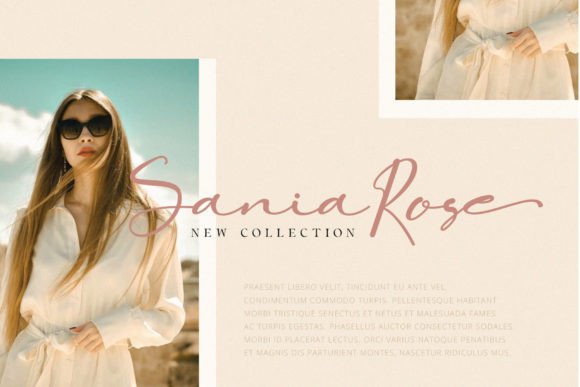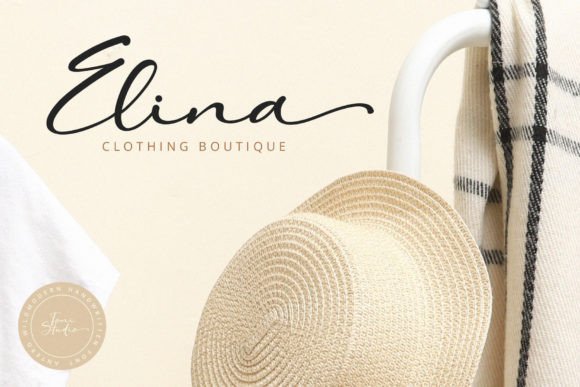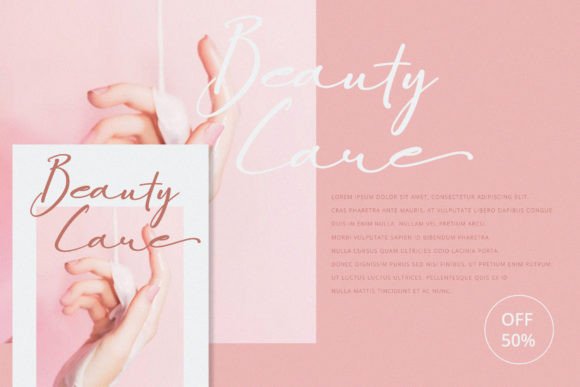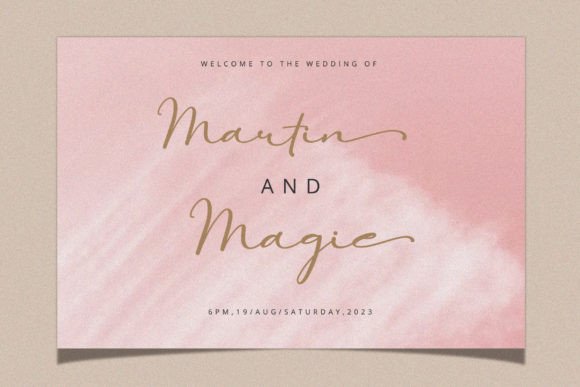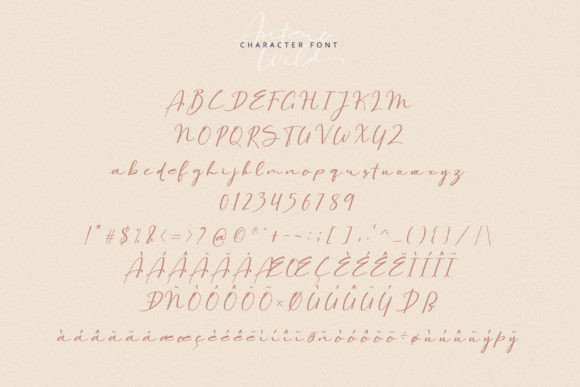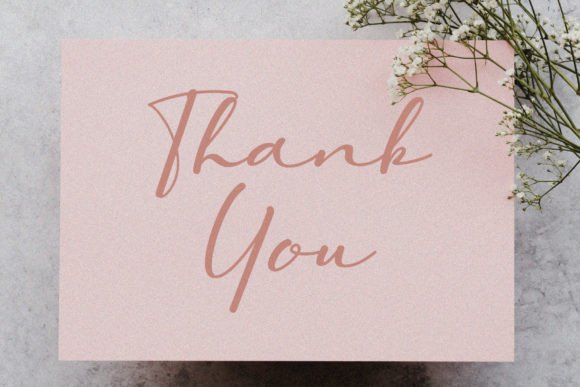
The Designer’s Delight: Antero Wild Font
Have you ever been in the middle of a design project, and suddenly, you’re stuck on finding the perfect font? I recall a wedding invitation project where I struggled to find a font that exuded both elegance and playfulness. That’s when I stumbled upon Antero Wild, a beautiful handwritten font that instantly charmed me. In this article, I’ll share my experience with Antero Wild, its features, and how to make the most of it in your designs.
A Personal Review: What I Love About Antero Wild
Antero Wild feels equally charming and elegant ✨, making it perfect for a variety of design projects. Here are some things I love about this font:
- ✅ Versatility: It looks stunning on wedding invitations, thank you cards, quotes, greeting cards, logos, business cards, and every other design that needs a handwritten touch.
- ✅ PUA Encoding: Antero Wild is PUA encoded, which means you can access all of the glyphs and alternates with ease!
- ✅ Elegant and Playful: The font strikes a perfect balance between elegance and playfulness, making it suitable for a wide range of designs.
While Antero Wild is an excellent font, there are a few minor quirks to be aware of:
- ⚠️ Glyph Overload: With so many glyphs and alternates available, it can be overwhelming to navigate, especially for beginners.
- 🤔 Font Pairing: Antero Wild is a statement font, so pairing it with other fonts can be challenging. You’ll need to experiment to find the perfect combination.
Antero Wild was created with the intention of crafting a font that would evoke a sense of elegance and playfulness. The designer aimed to create a handwritten font that would be versatile and suitable for a wide range of design projects. While the designer’s exact inspiration may be unknown, it’s clear that Antero Wild was crafted with love and attention to detail.
| Font Name | Antero Wild Font |
| What is PUA encoding? | PUA (Private Use Area) encoding allows for the use of additional glyphs and alternates in a font, making it more versatile and customizable. |
| Is Antero Wild suitable for body text? | While Antero Wild is a beautiful font, it’s best suited for headlines, titles, and short paragraphs. For body text, a clearer font may be more readable. |